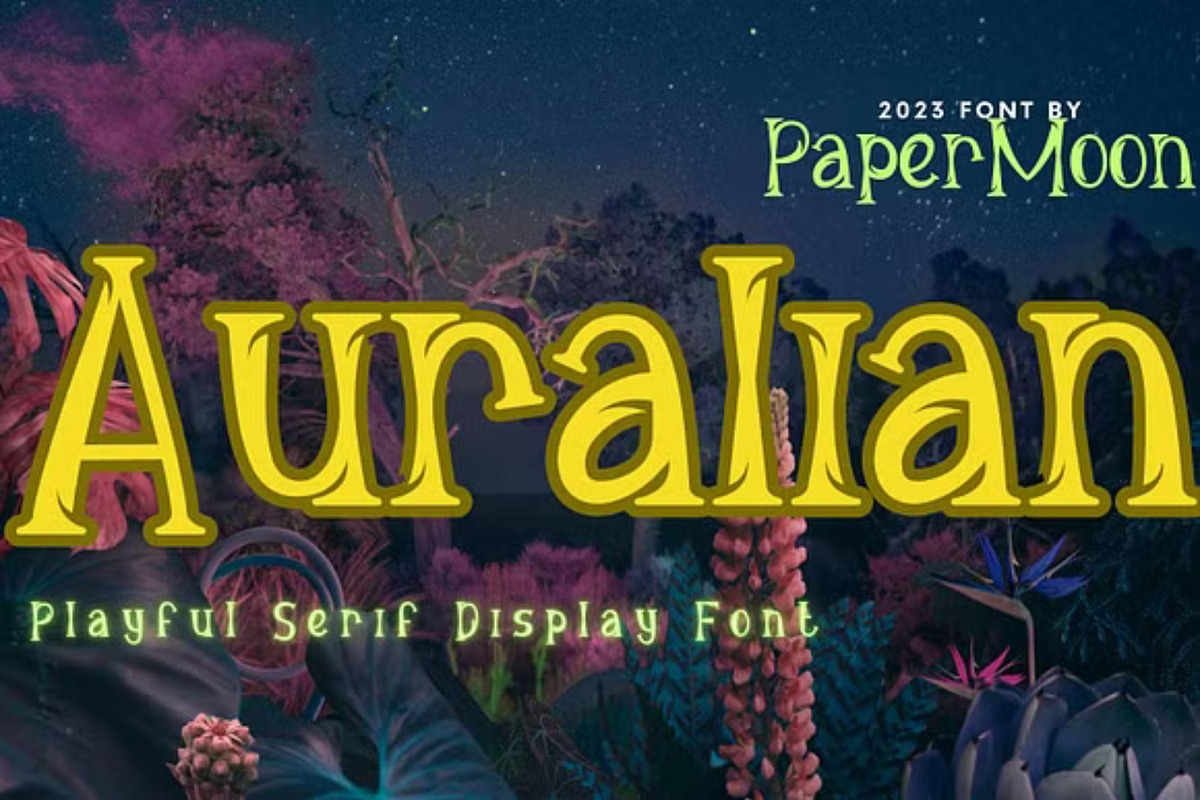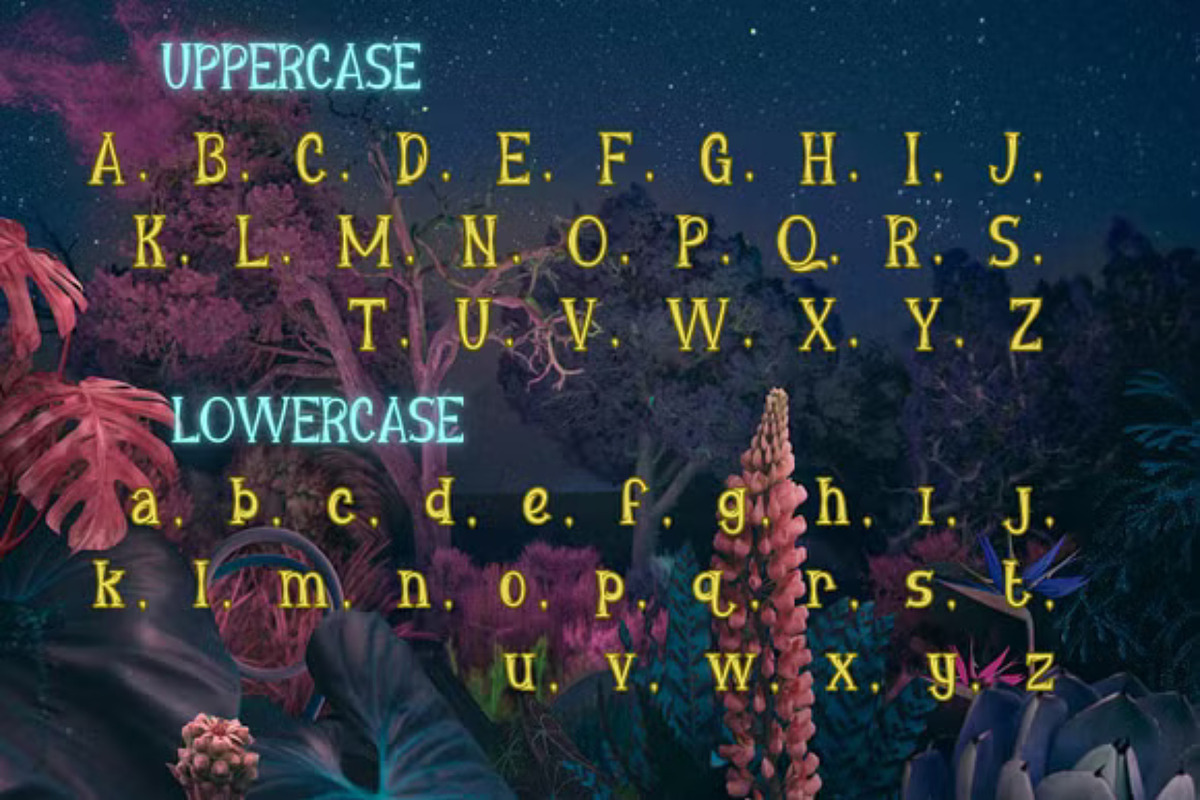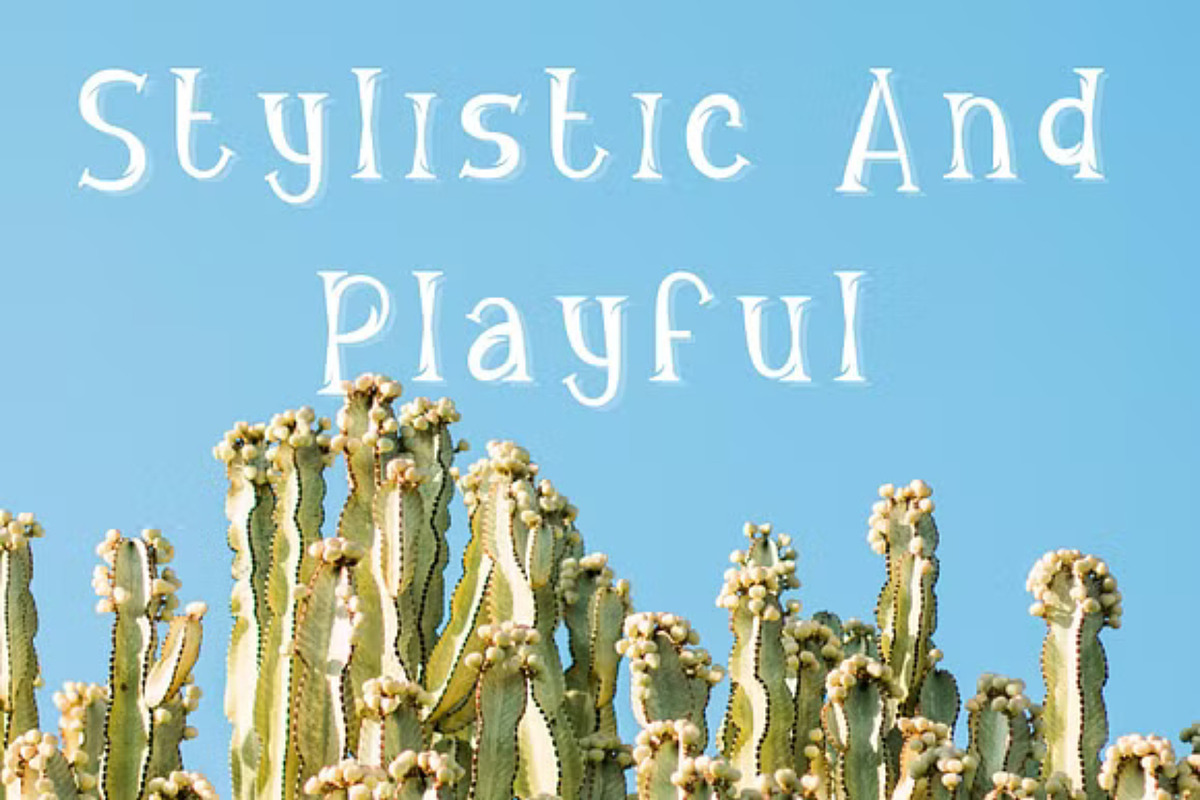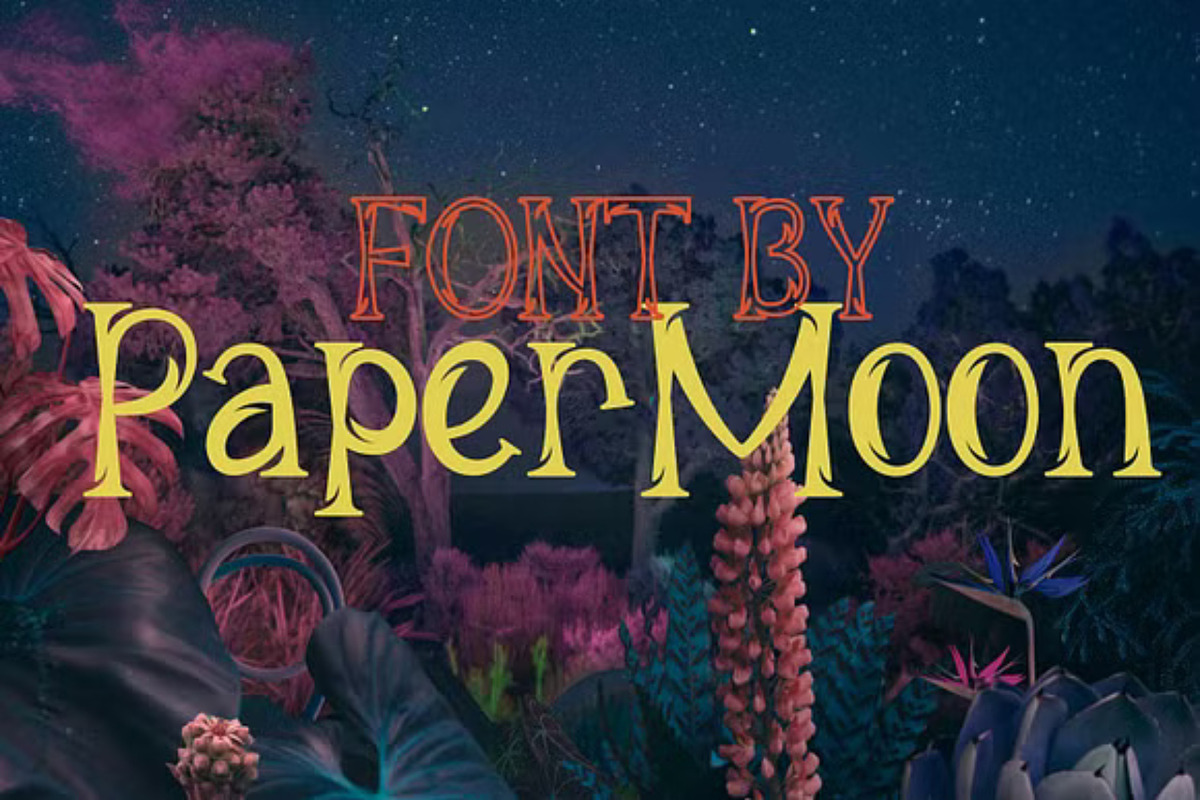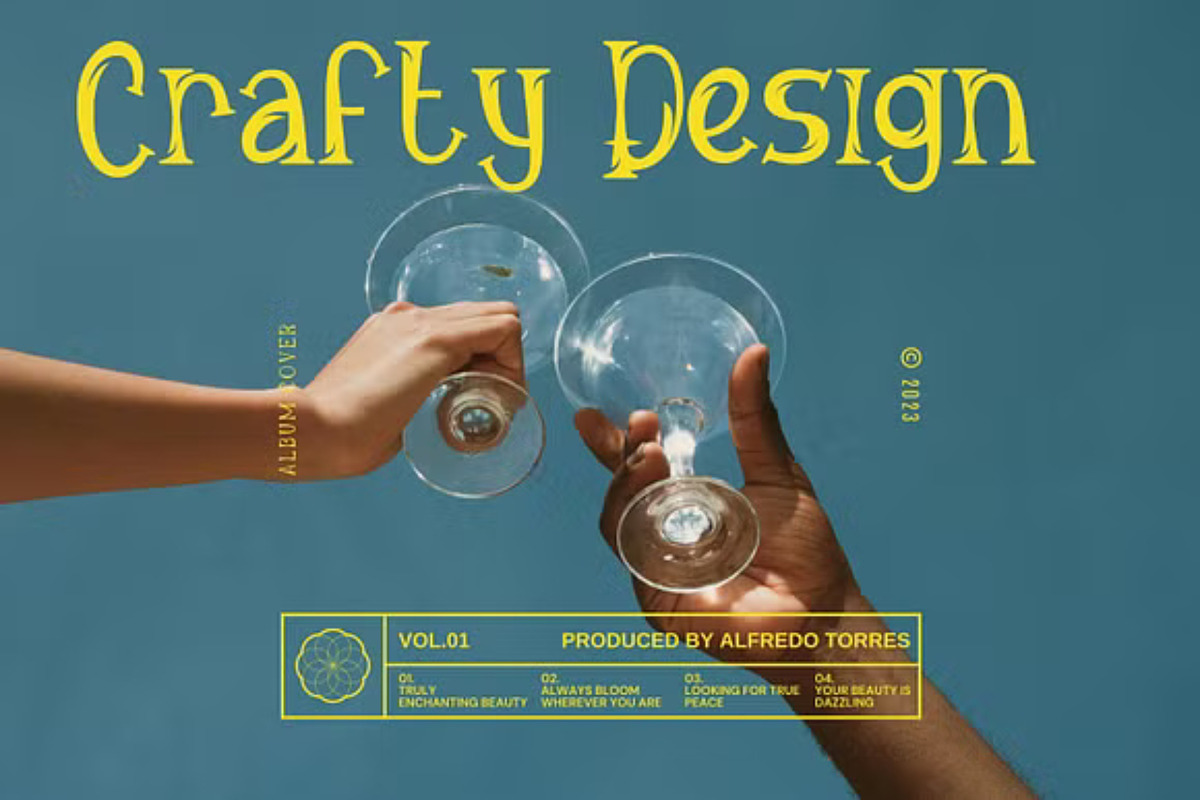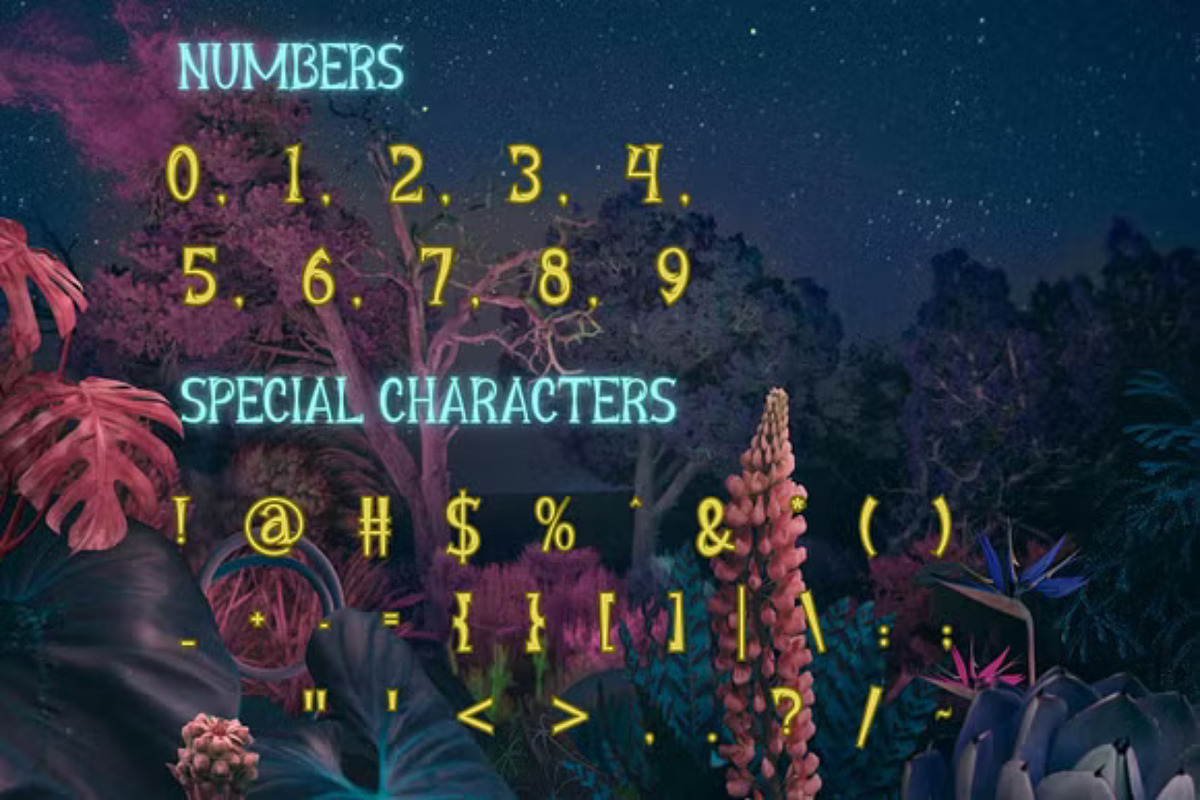
Auralian - Playful Display Font
Introducing Auralian: The Distinctive Serif Display Font for Endless Creative Possibilities!
Say hello to Auralian, a beautifully crafted serif display font designed to elevate your creative projects. With its charming decorative style and casually chic appeal, this font is perfect for adding a unique touch to any design. Whether your work involves advertising, publishing, digital media, culinary arts, children's projects, packaging, or product design, Auralian fits seamlessly into a variety of creative fields.
OTF Files TTF Files Auralian Font isn’t just a typeface; it’s an expressive masterpiece featuring playful embellishments that give each character a distinctive flair. Inspired by the beauty of nature, it brings a sense of serenity and relaxation to any project. It’s ideal for creativity-driven designs like cartoon artwork, comics, children’s apparel, toys, school supplies, birthday invitations, and countless other applications.
Let your imagination run wild with Auralian Font—your go-to companion for imaginative, playful projects. Add a whimsical and creative touch to your designs and watch them shine!